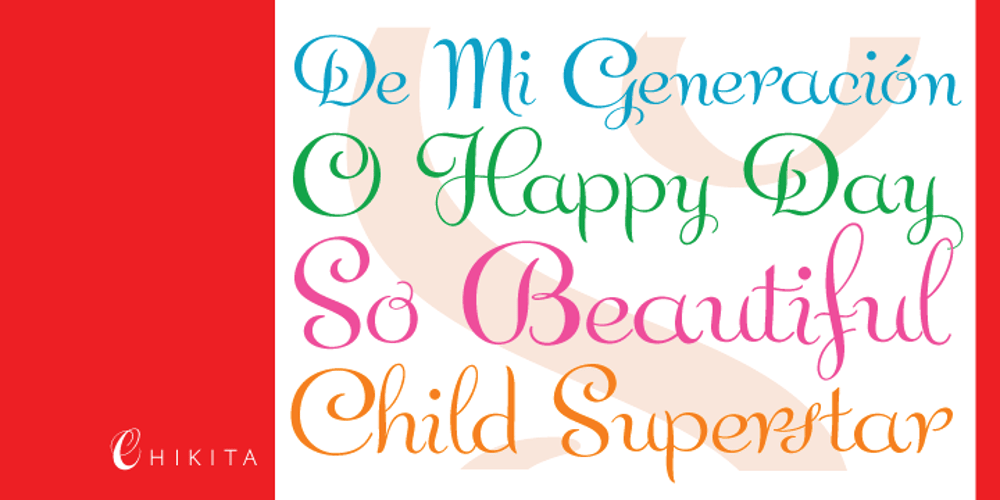
Chikita Font Family was designed by Rebecca Alaccari, Patrick Griffin and published by Canada Type. Chikita contains 3 styles and family package options. Chikita greets you with big, happy eyes, and all the energy in the world. She wants to skip the talking and get to the dance floor, where she owns the beat and sways like a tongue of fire. She doesn’t settle for anything less than everyone in the room fixating on her, and every pair of eyes is indeed happy to oblige. Being both the noumenon and phenomenon of the party, she remains in your mind long after closing time. And you just know the next time you see her your heart will skip a beat and a welcome wave of contentedness will wash over you. The Chikita design is rooted in the work of 1930s Dutch lettering artist Martin Meÿer, whose little-known work concerned itself with the beauty of letters mostly as individual forms, rather than part of a flowing alphabet. Chikita was reconceptualized to strike a great balance between singular and flowing beauties, resulting in a cheerful and very memorable expression. Chikita is available in all popular font formats, and the character sets cover a wide range of codepages, including Central and Eastern European languages, Esperanto, Turkish, Baltic, Celtic/Welsh and Vietnamese.